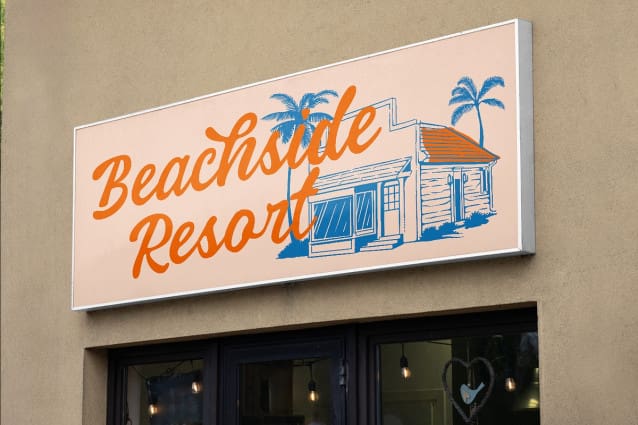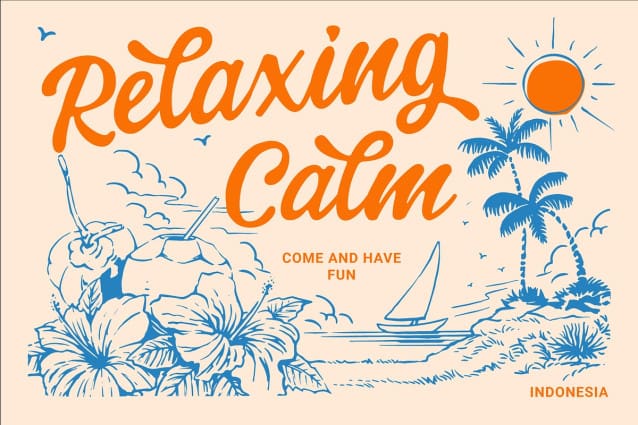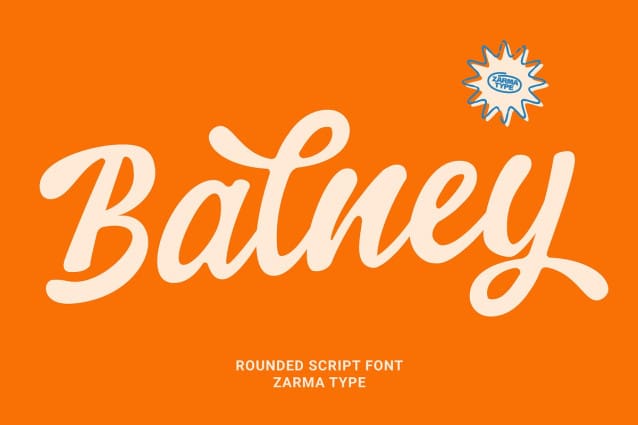
Balney Script Font
Balney Script Font is a charming rounded script typeface that perfectly blends retro warmth with modern freshness. With its smooth flowing curves and balanced strokes, it embodies the carefree spirit of summer while maintaining professional versatility across various applications.
Each character has been meticulously crafted to ensure seamless connections and natural flow, making it ideal for brands that want to convey a friendly and approachable personality. The font’s distinctive style carries strong summer nostalgia while remaining contemporary and highly readable across different sizes.